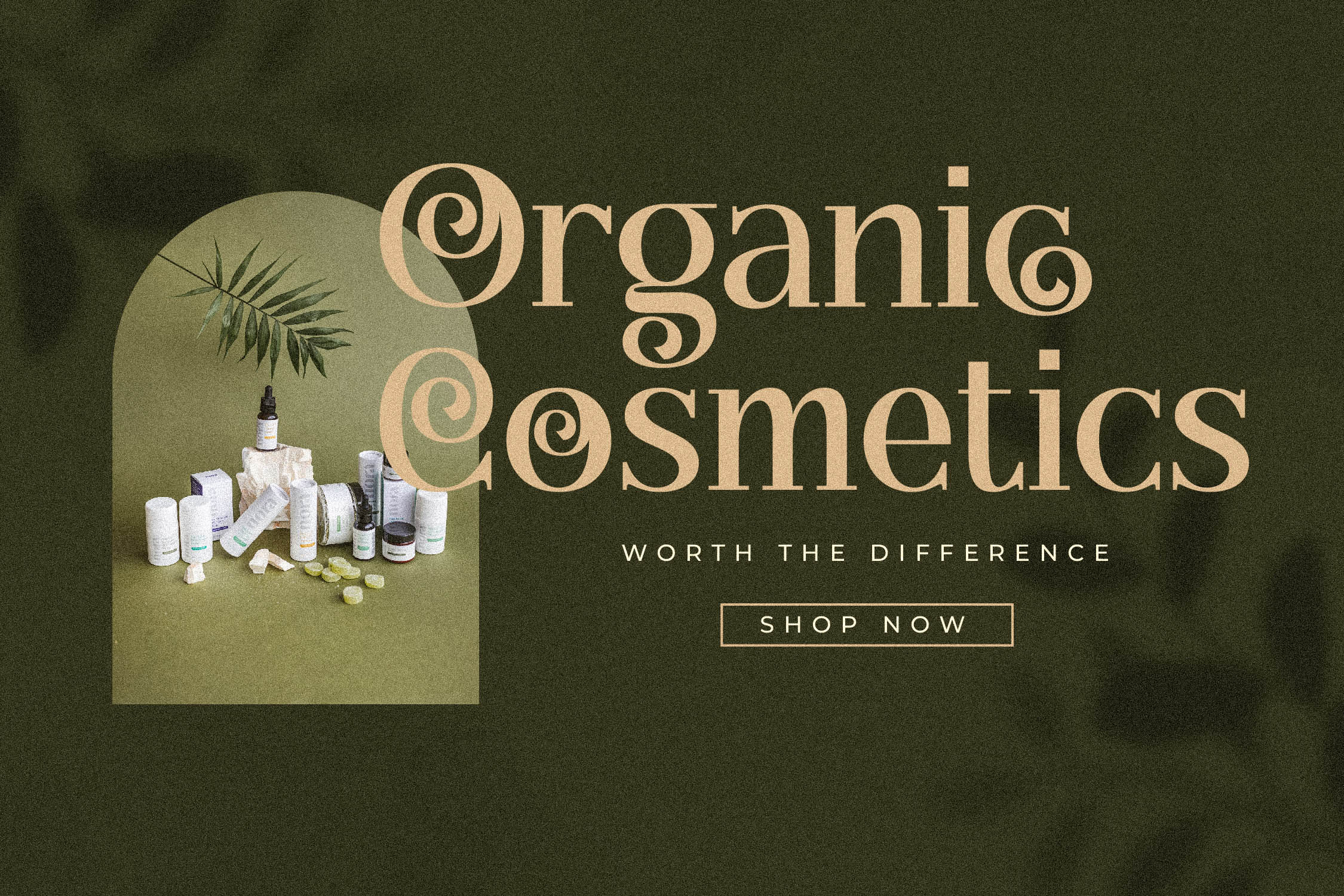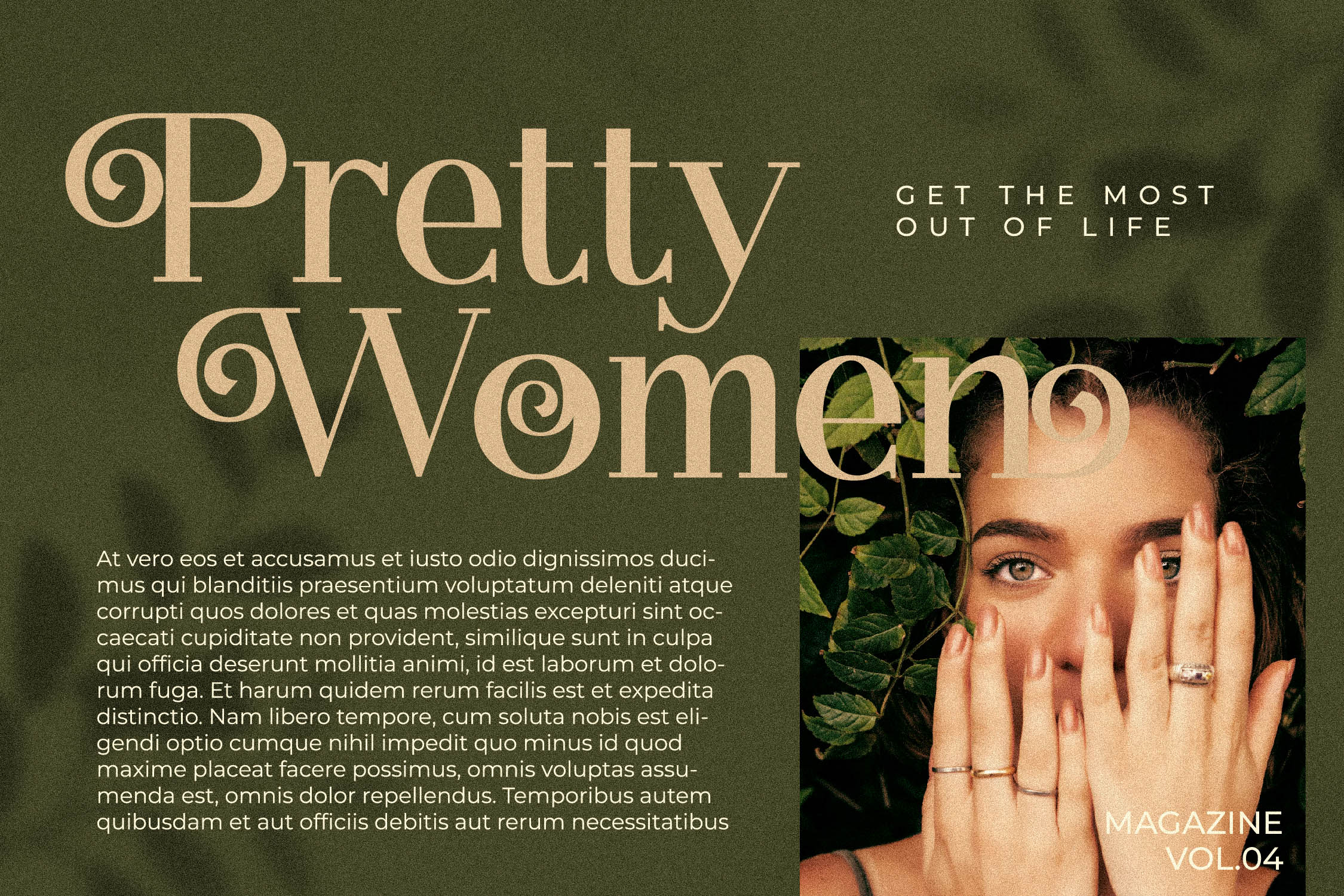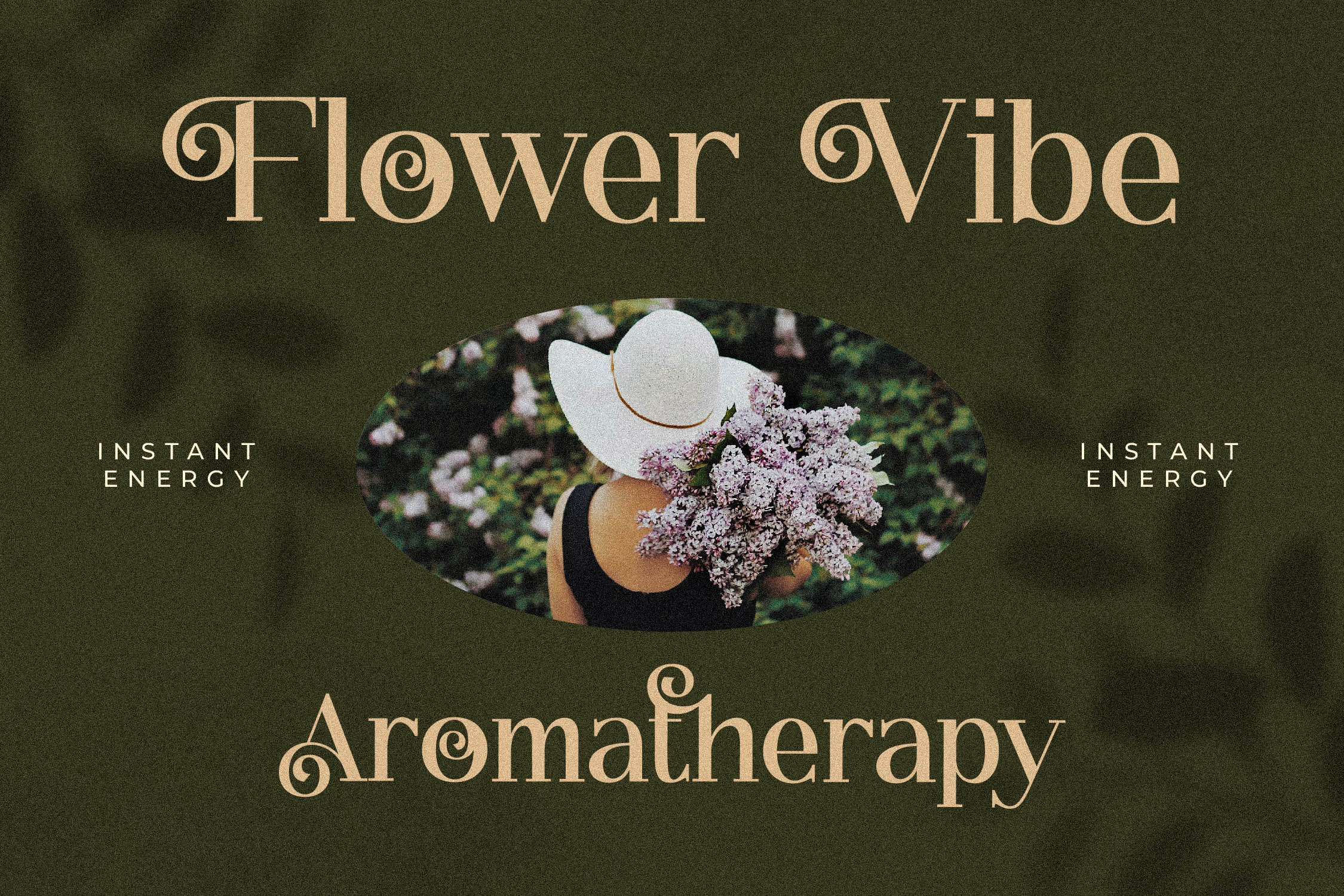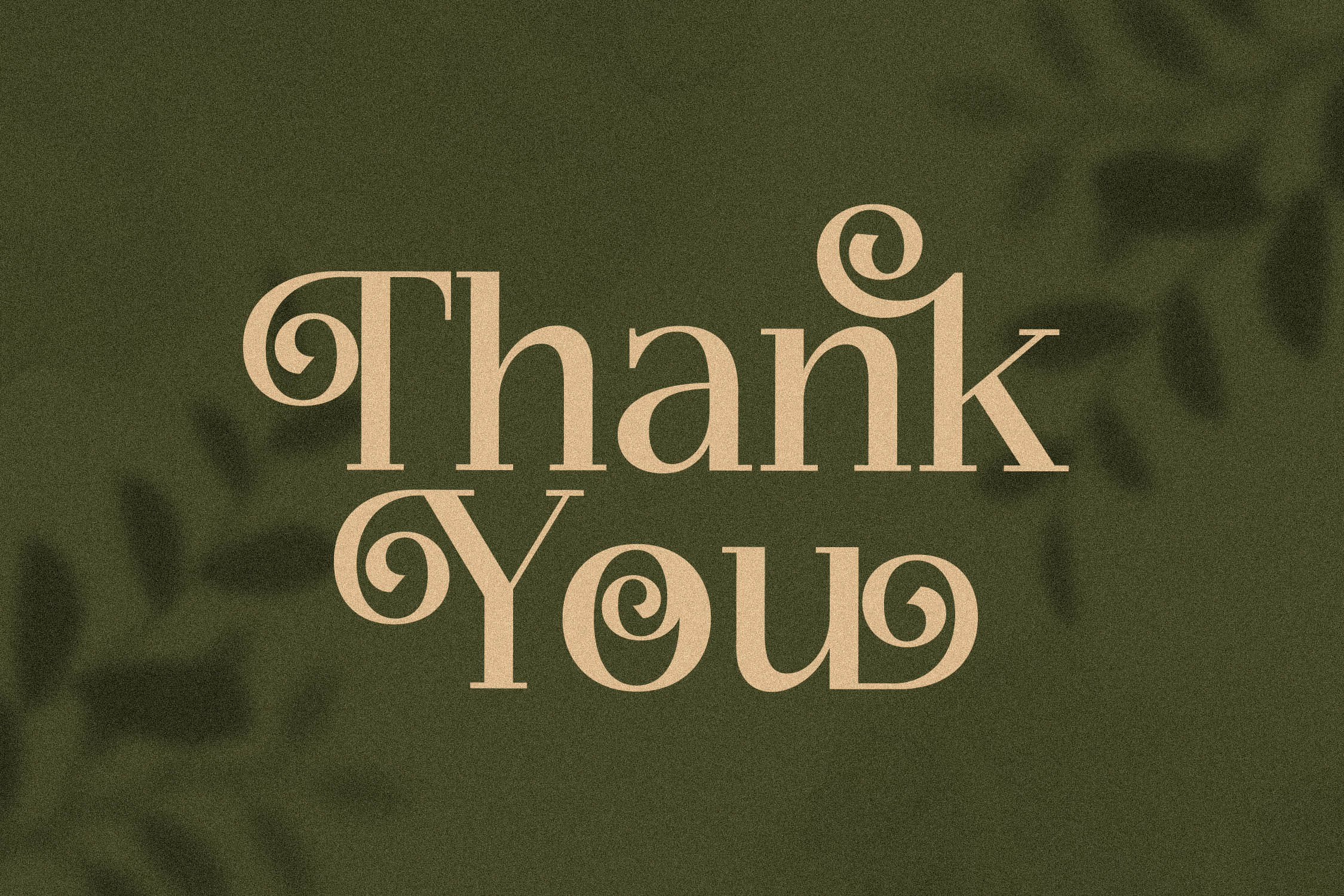
Balechin Royalo Serif Font is a serif modern and classic typeface that has own unique style & modern look. This typeface is perfect for an elegant & luxury logo, book or movie title design, fashion brand, magazine, clothes, lettering, quotes, and so much more.